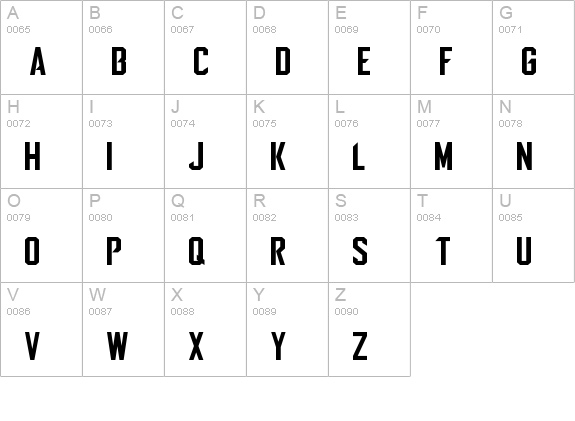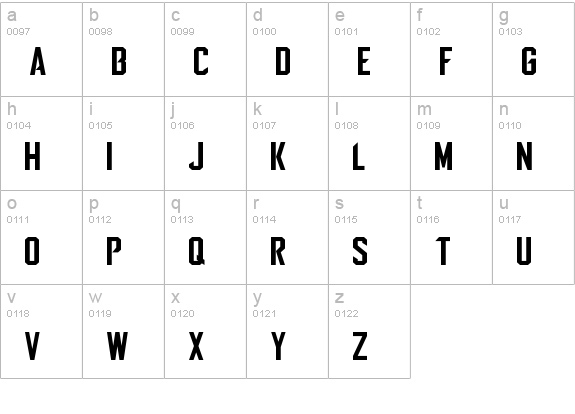
NFL Jacksonville Jaguars Font Details
Introducing the NFL Jacksonville Jaguars font, a dynamic and captivating typeface that perfectly embodies the spirit of one of the most exciting teams in professional football. With its sleek and stylish design, this font captures the essence of the Jacksonville Jaguars' fierce determination and relentless pursuit of victory. Featuring bold letterforms and clean lines, the NFL Jacksonville Jaguars font exudes power and confidence, just like the players who proudly wear the team's iconic teal and black uniforms. Whether used for headlines, logos, or body text, this font commands attention and conveys the Jaguars' undeniable presence on the field. But the best part? The NFL Jacksonville Jaguars font is absolutely free. That's right, you can freely download this incredible typeface at FontsMarket.com. Now, you can bring the spirit of this legendary football franchise to your own projects, without any cost or hassle. So, whether you're a die-hard Jaguars fan or simply appreciate the artistry of a well-crafted font, the NFL Jacksonville Jaguars font is a must-have for your collection. Download it now and unleash its bold and powerful energy in your designs. Get ready to make a statement that echoes the strength and determination of the Jacksonville Jaguars, all with the click of a button.